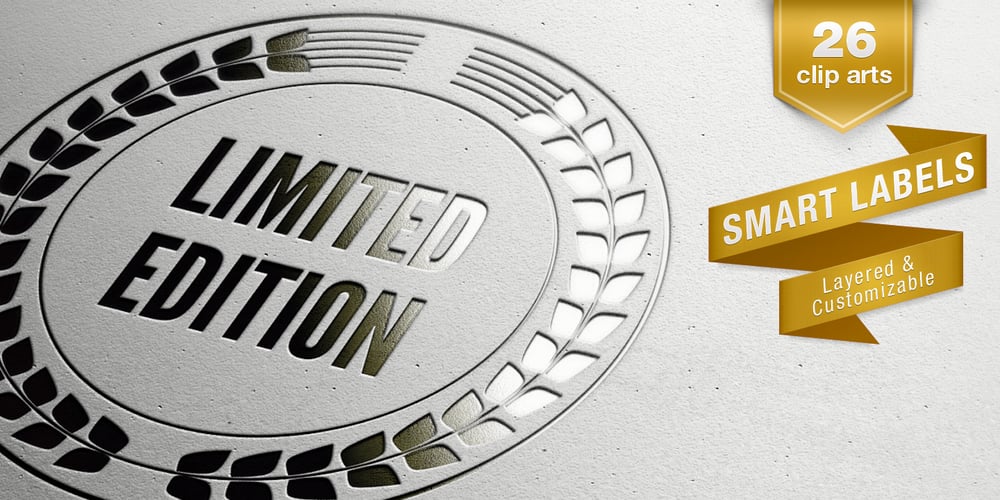
Smart Labels Font Family was designed by Juraj Chrastina and published by Juraj Chrastina. Smart Labels contains 3 styles and family package options. With this template set you can make endless tags, shopping sale designs, discounts or anything you want. After Handy Labels, Smart Labels is another bunch of 26 different layered and customizable vector clip arts. They are easily accessible through a set of 3 fonts, each containing 52 glyphs. You can, but you don’t have to use any vector graphics editor. You don’t even have to work with multiple layers if you don’t want to. The basic font contains 26 ready-made labels with texts. These are encoded as upper case. You can enter your own texts to the 26 empty labels encoded as lower case. Smart Labels Frames contains empty labels divided into 2 layers and encoded as lower and upper case. Like this you can apply multiple colours with ease. Smart Labels Texts are also divided into 2 layers. You can actually convert the fonts to vector outlines and your edit possibilities are unlimited.